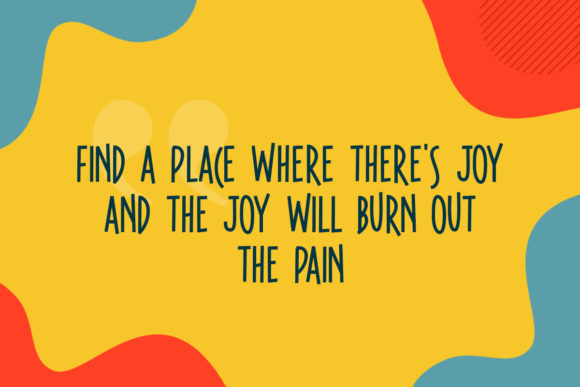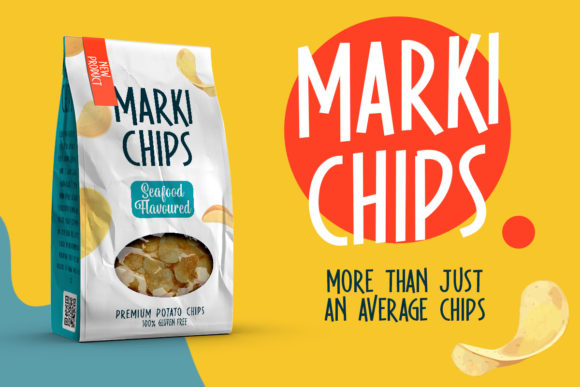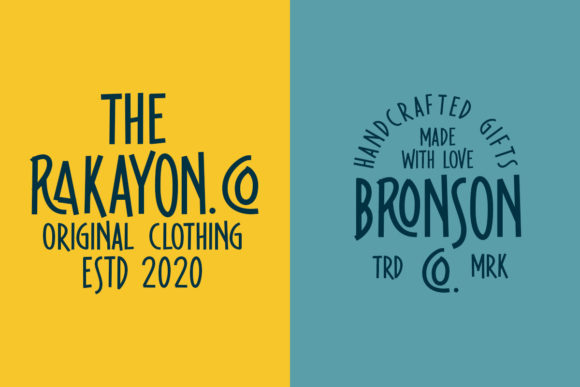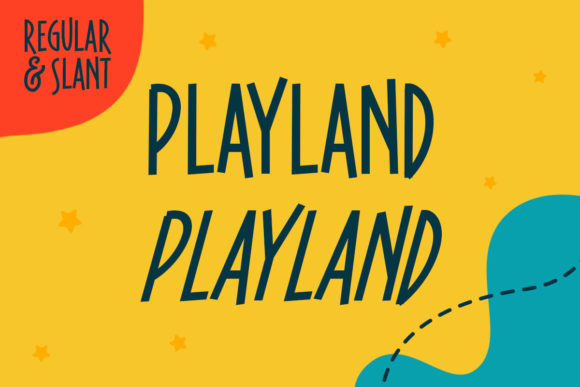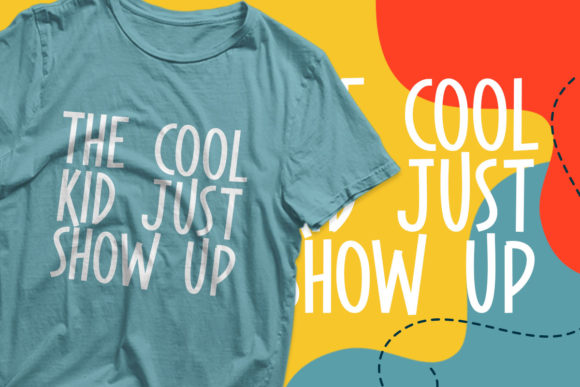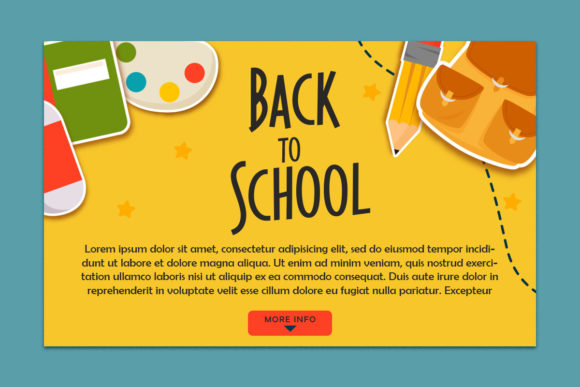
Introduction to Kanote Font
Remember that moment when you were brainstorming ideas for your next creative project, and everything seemed perfect – except for the font? It’s a familiar struggle for designers, and it can make or break the entire design. But what if you had a secret weapon to elevate your ideas and make them truly stand out?
Enter the Kanote Font, a delightful and quirky display font that adds a touch of whimsy to any design. Its high quality and unique style make it an invaluable resource for designers looking to take their projects to the next level. And the best part? It’s available for free download, complete with a transparent background, making it easy to integrate into any design.
Key Features of Kanote Font
- High Quality Design: Kanote Font is a professional-grade design resource, ideal for creative projects that require a touch of elegance and sophistication.
- Transparent Background: This font features a transparent background, allowing for seamless integration with any design element, from logos to graphics.
- Unique Characteristics: Kanote Font features a unique blend of modern and traditional design elements, making it an excellent choice for designers looking to add a touch of personality to their creative projects.
- Professional-Grade Quality: Kanote Font is designed to meet the highest standards of quality, ensuring that it looks great on any device, from desktops to mobile phones.
Honest Review: Kanote Font
I recently stumbled upon the Kanote Font and was excited to give it a try for my creative project. As a designer, I’m always on the lookout for high-quality design resources that can elevate my work.
First impressions: the Kanote Font has a sleek and modern aesthetic that I love. The font is available for free download, which is always a bonus! It comes in a variety of weights, making it super versatile for different design needs.
- ✨ High-quality design that looks great on screen and print
- ✨ Transparent background, making it easy to work with
- ✨ Versatile font family with multiple weights
However, there are a few limitations I’ve noticed:
- ⚠️ Limited language support (only Latin-based languages are currently supported)
Overall, I’m impressed with the Kanote Font. While it may have some limitations, its high-quality design and versatility make it a great addition to any designer’s toolkit. If you’re looking for a reliable font for your creative project, I’d definitely recommend giving it a try!
Kanote Font
The Kanote Font is a versatile and creative design resource that offers a high-quality, free download experience. Its transparent background makes it perfect for use in various design projects.
Here are some tips for getting the most out of Kanote Font: use it in combination with other design resources, experiment with different font sizes and colors, and apply it to various design projects to create a cohesive look.
Some common use cases for Kanote Font include creating logos, branding materials, social media graphics, and presentations. You can also use Kanote Font for creating digital products, such as ebooks, courses, or software interfaces.